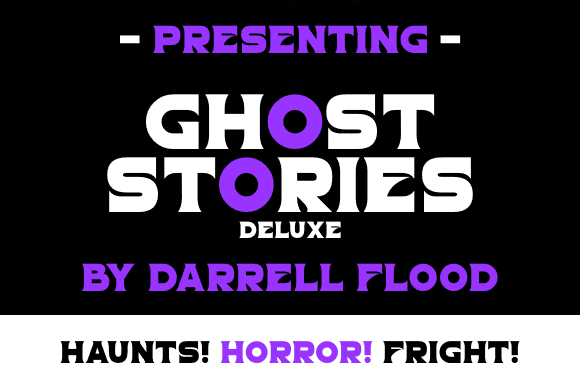
Introduction to Ghost Stories Deluxe Font
Ghost Stories Deluxe is a bold sans serif font with spiky curves and a distinct horror flavor.
Perfect for scary stories, Halloween themes and general fiction use .